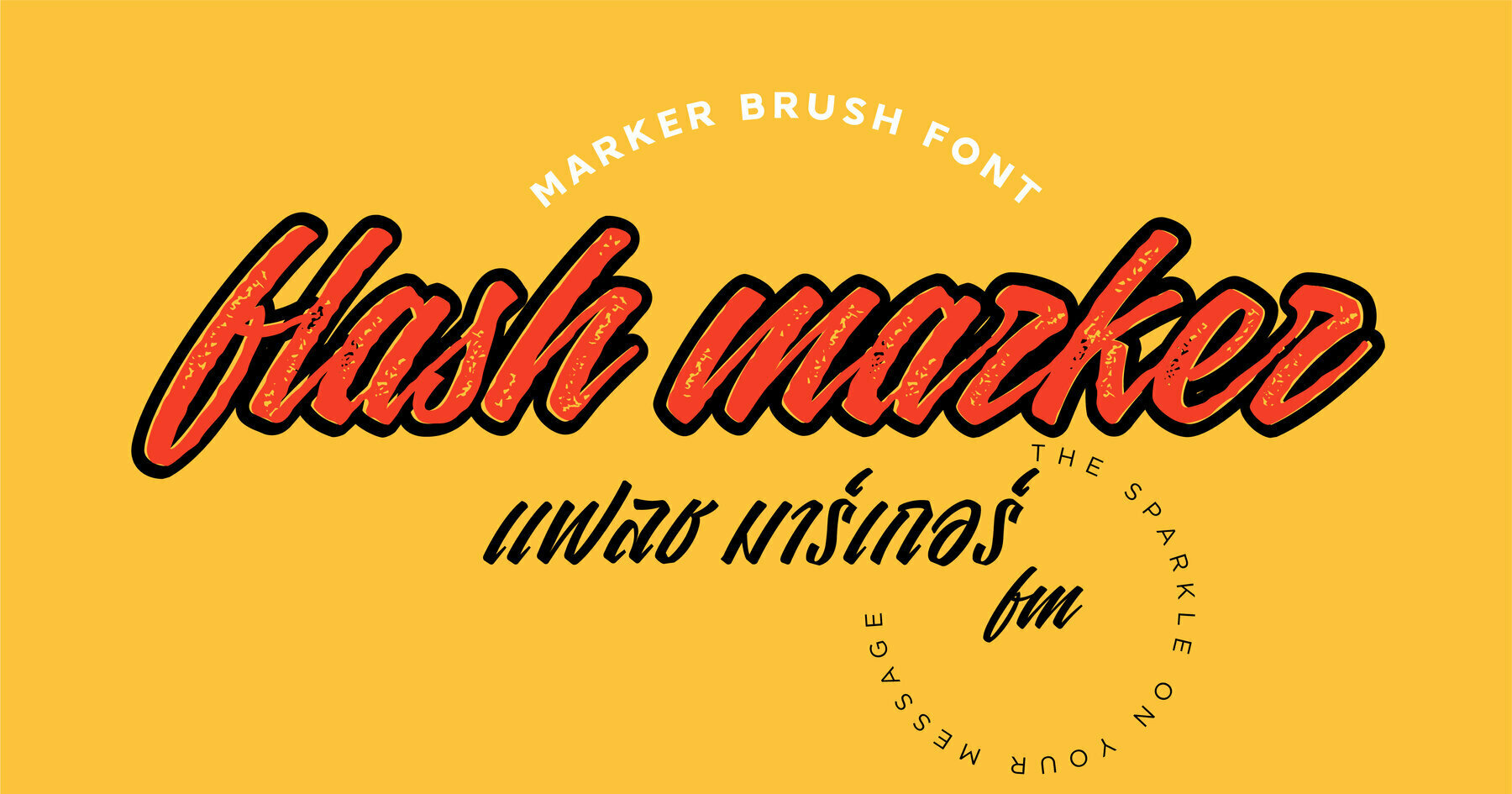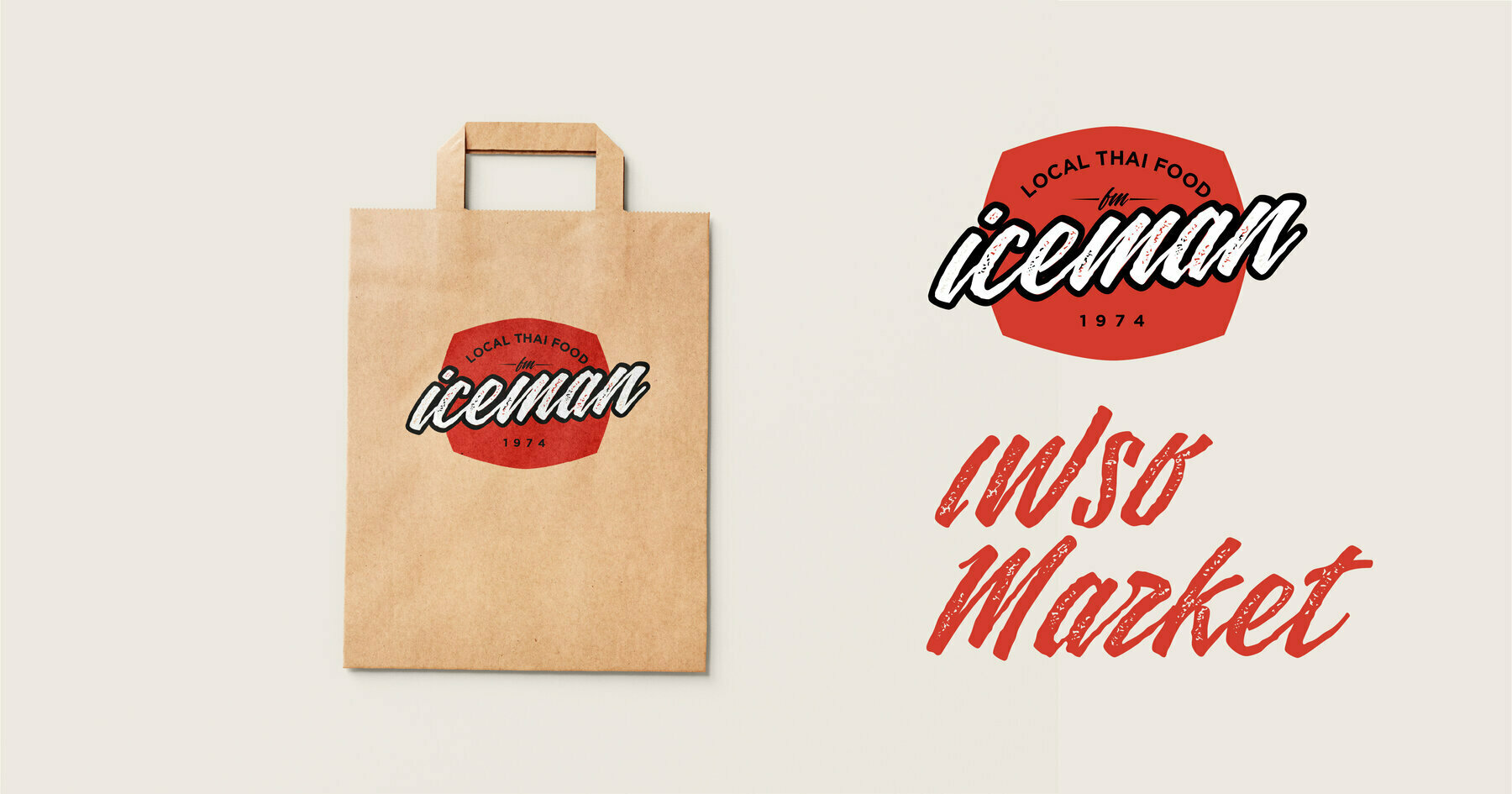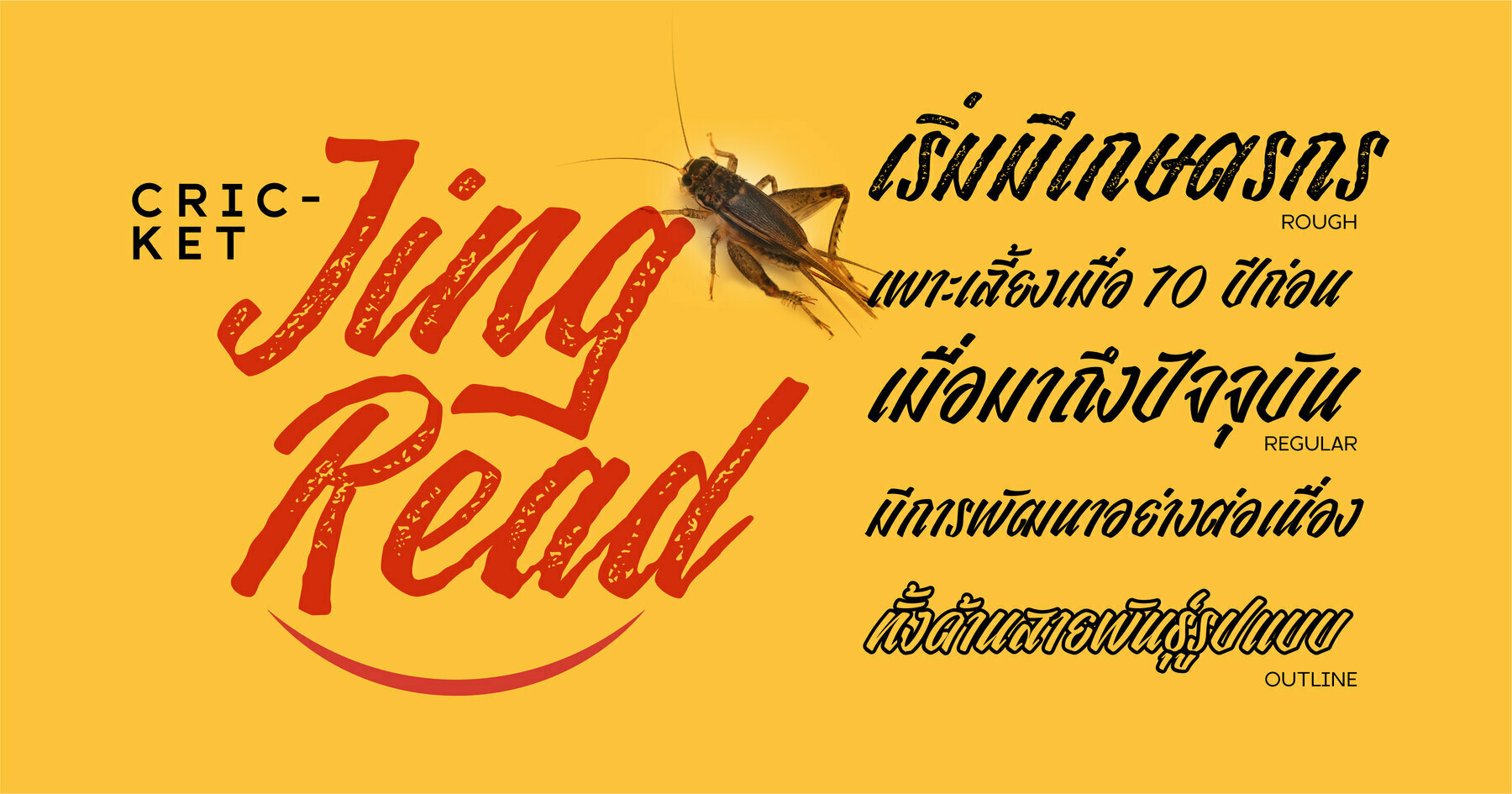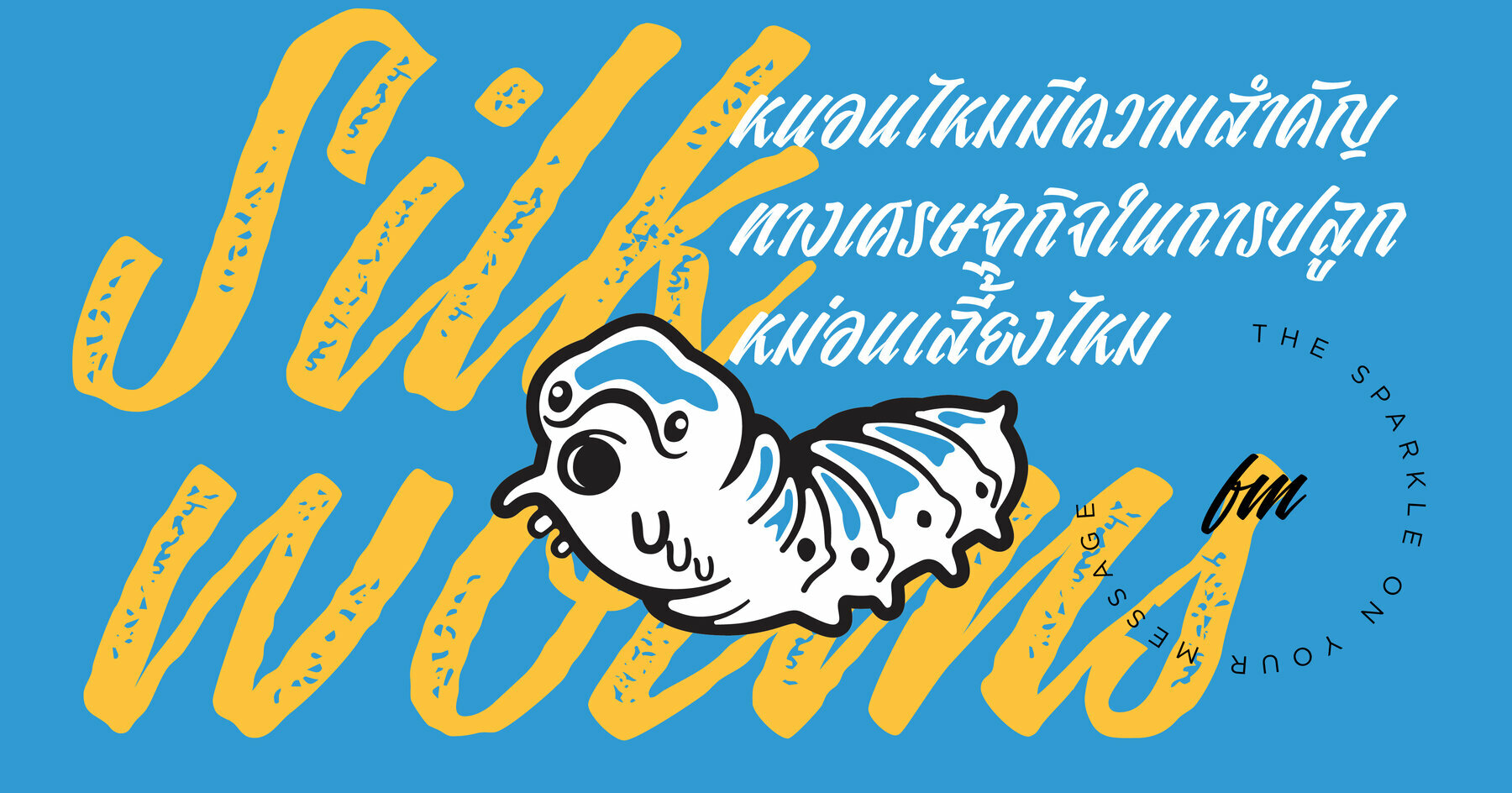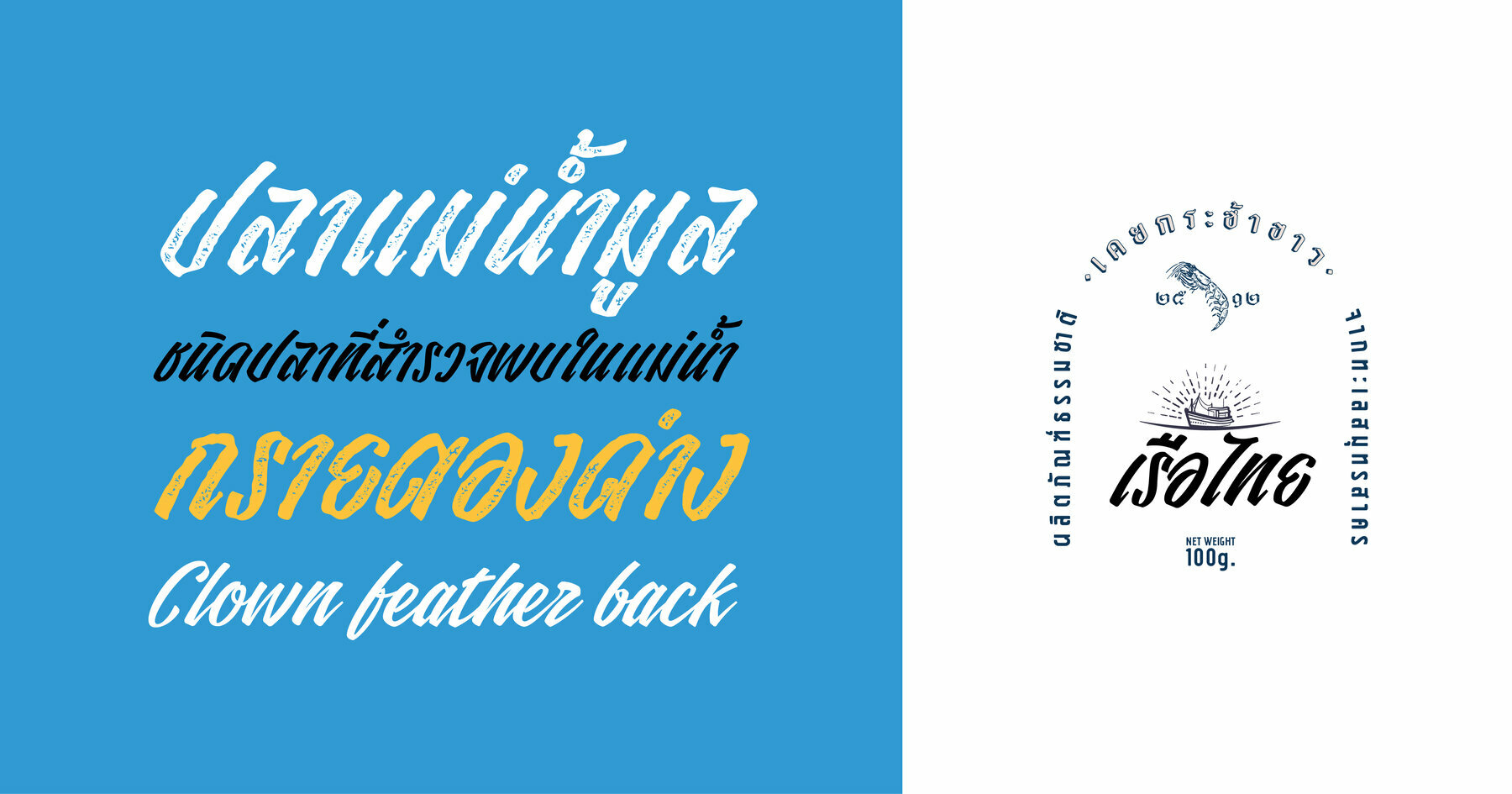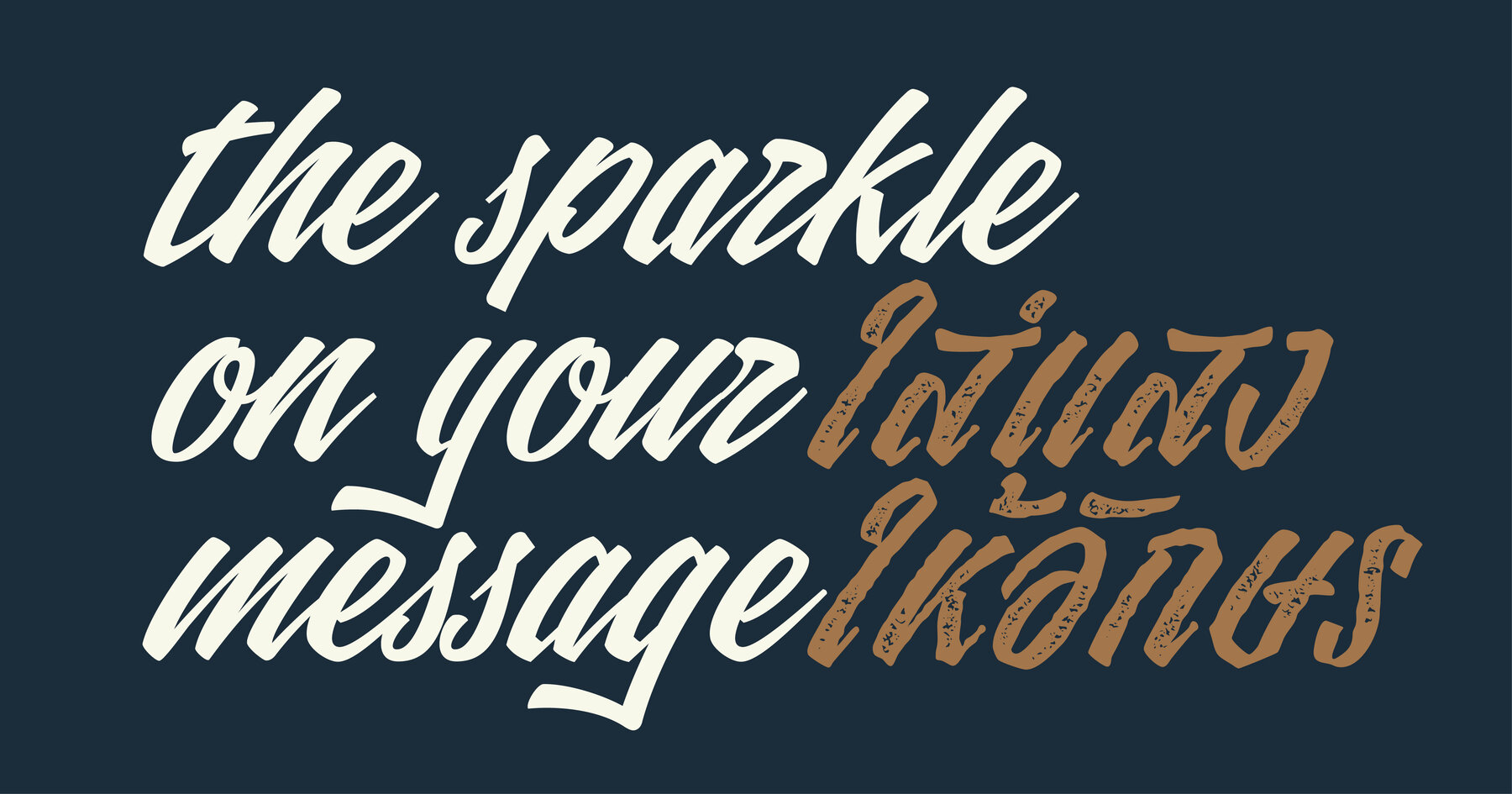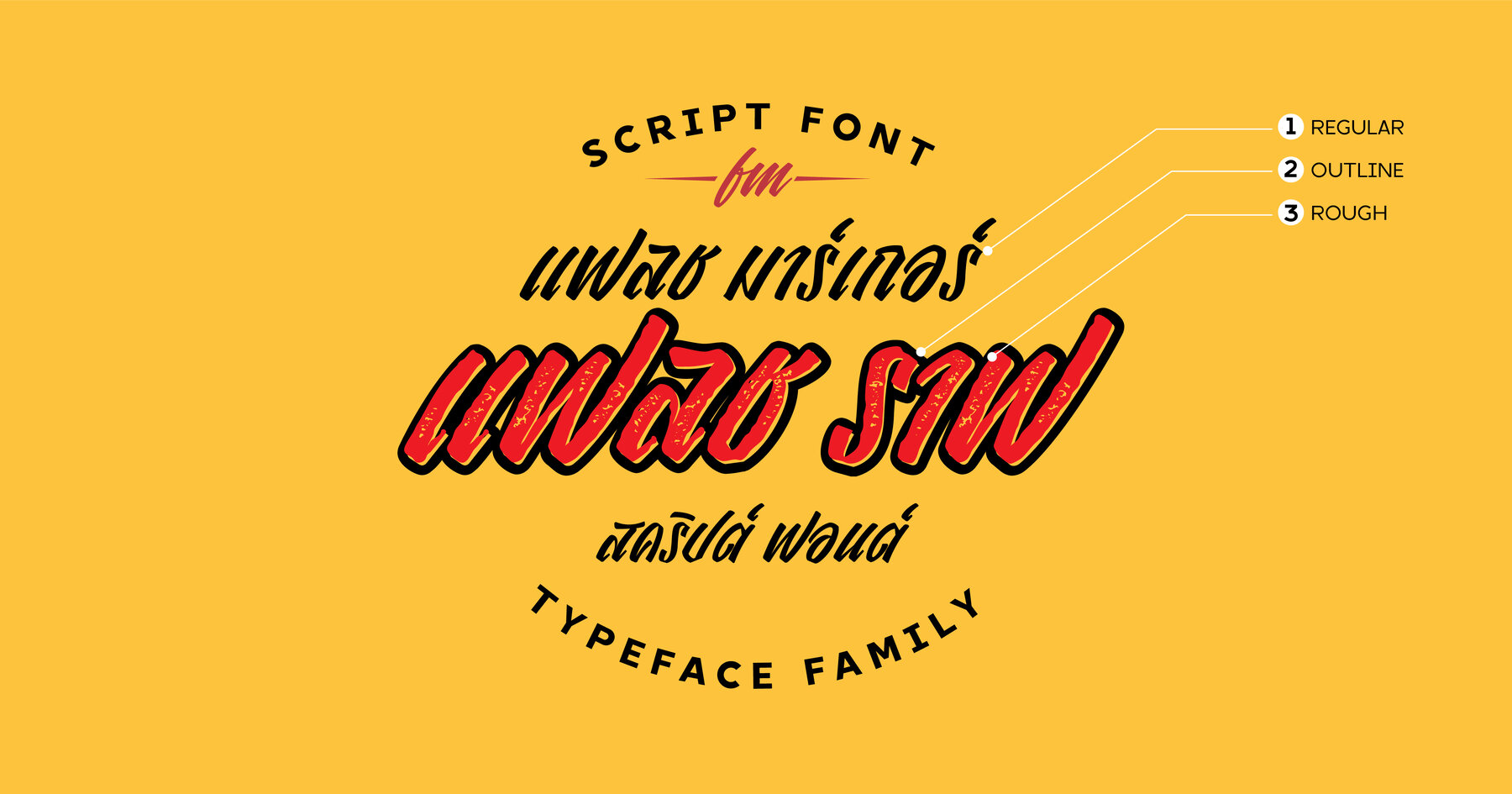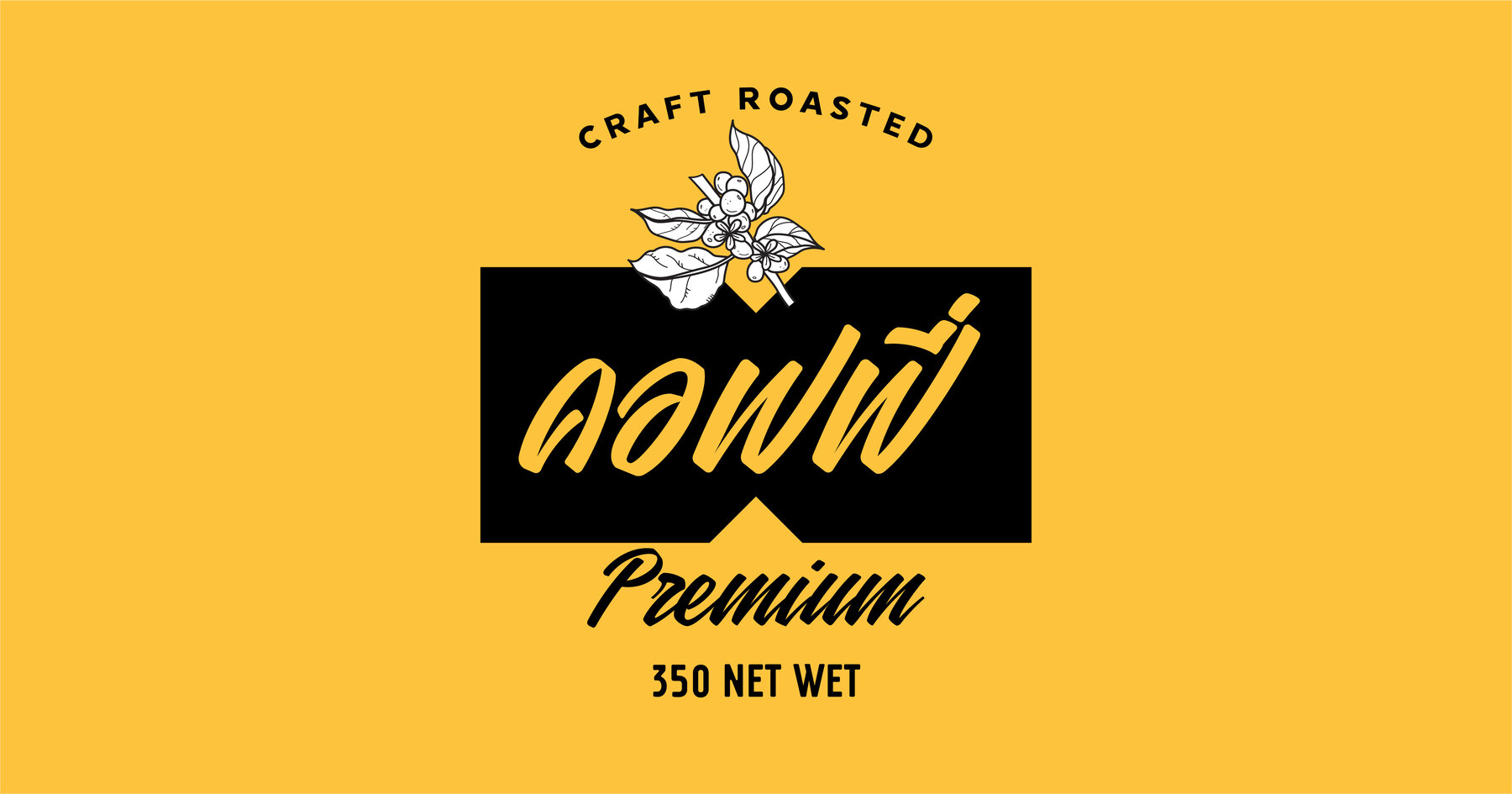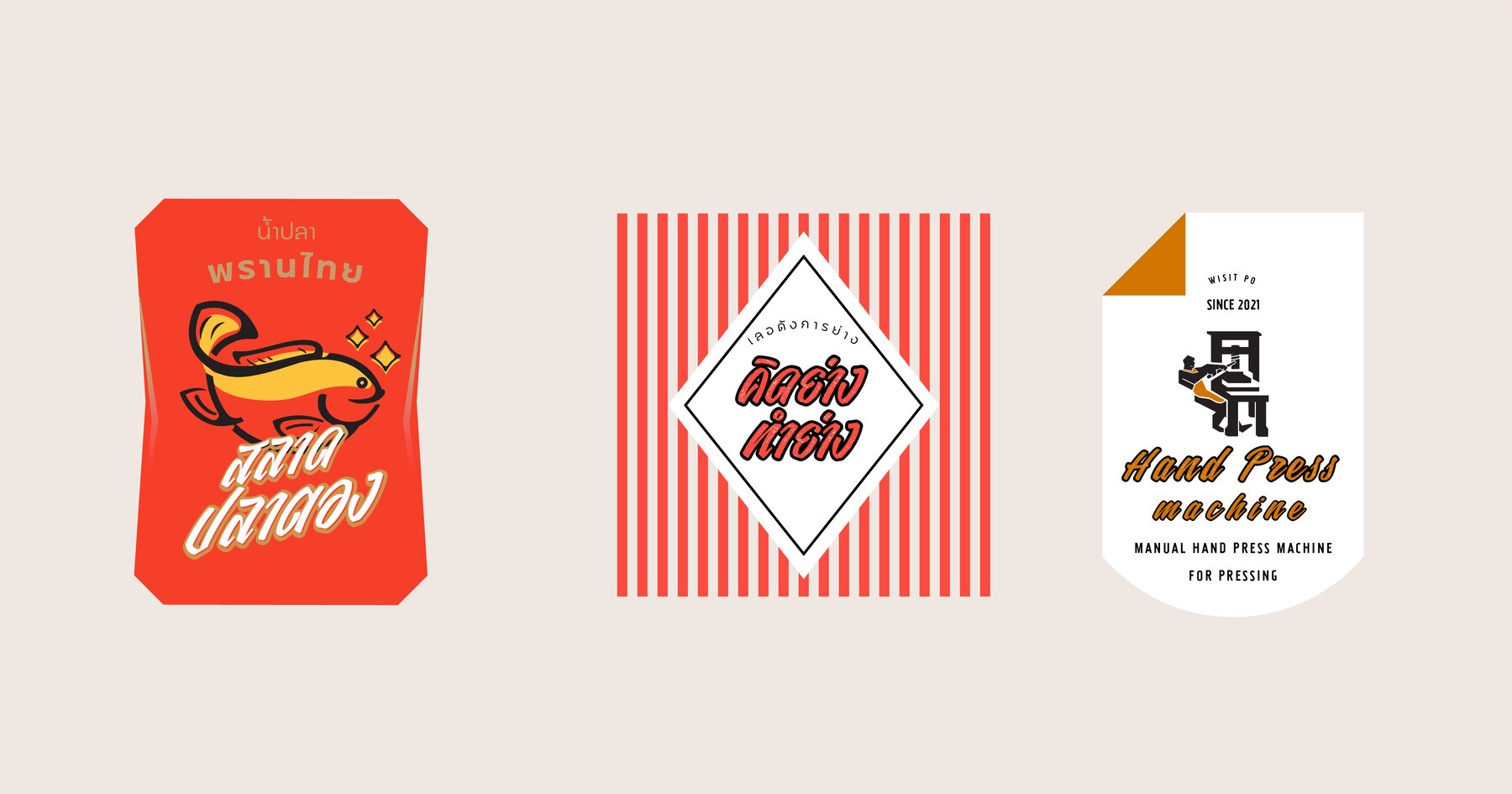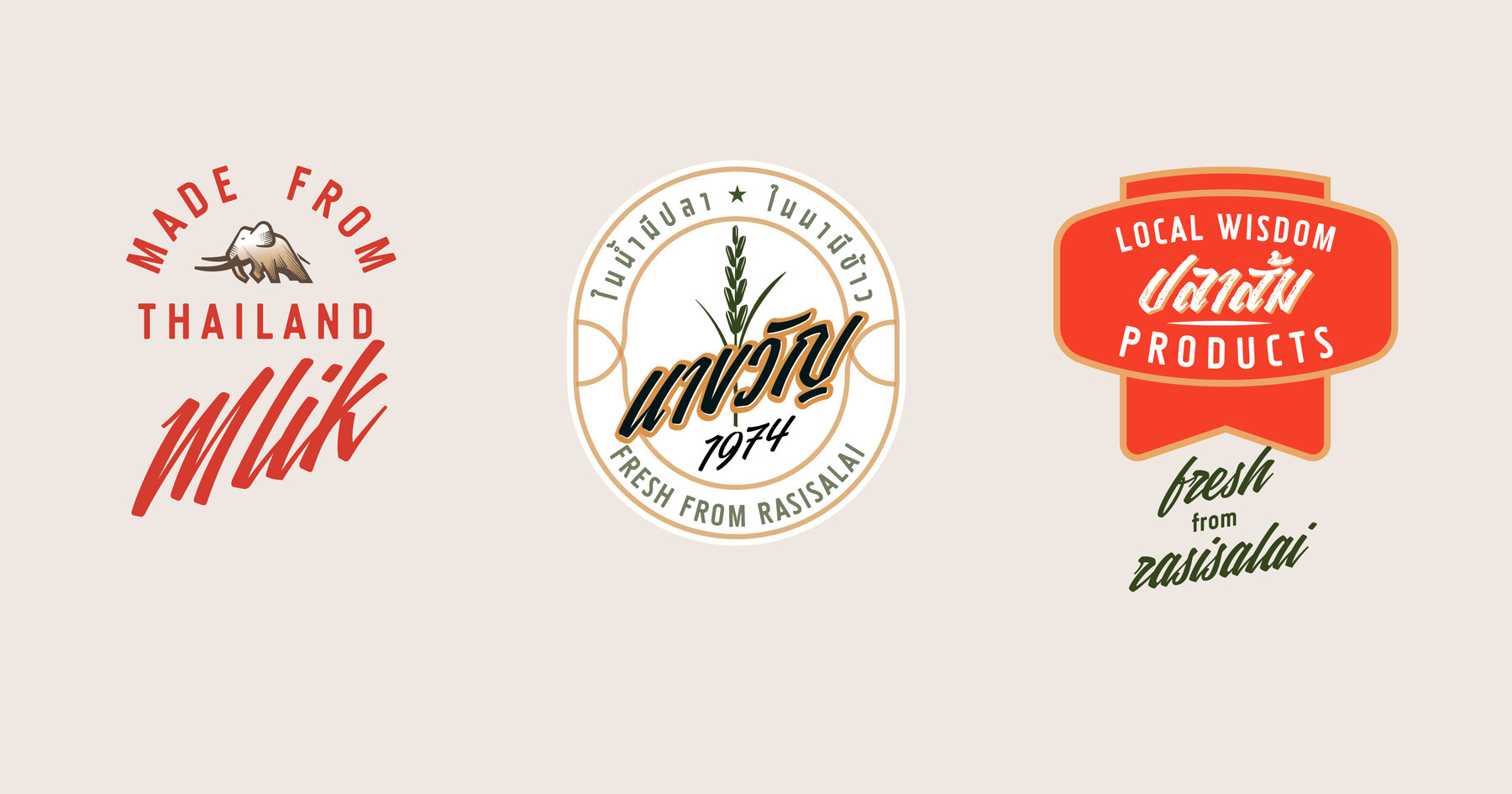
Flash Marker Font
Flash Marker Regular
Flash Marker Outline
Flash Marker Rough
Flash Marker offers a dynamic and visually striking font option with its hand-brushed style and lively baseline. Its complementary marker font seamlessly pairs to enhance your projects, providing versatility in design. The bonus set of stylish swashes further enriches creative possibilities. Flash Marker excels in enhancing various design elements, making it ideal for logos, branding materials, handwritten quotes, product packaging, and more. Its versatility ensures suitability for both professional and personal projects alike, including headers, posters, merchandise, social media, and greeting cards.Flash Marker: Expressive Hand-Brushed Typeface